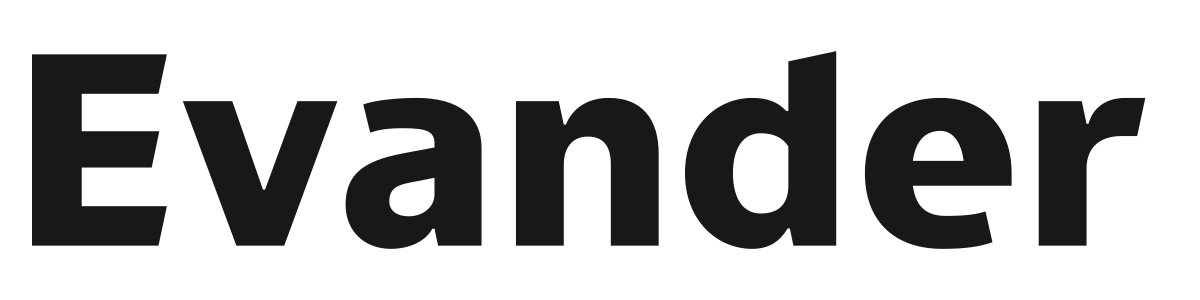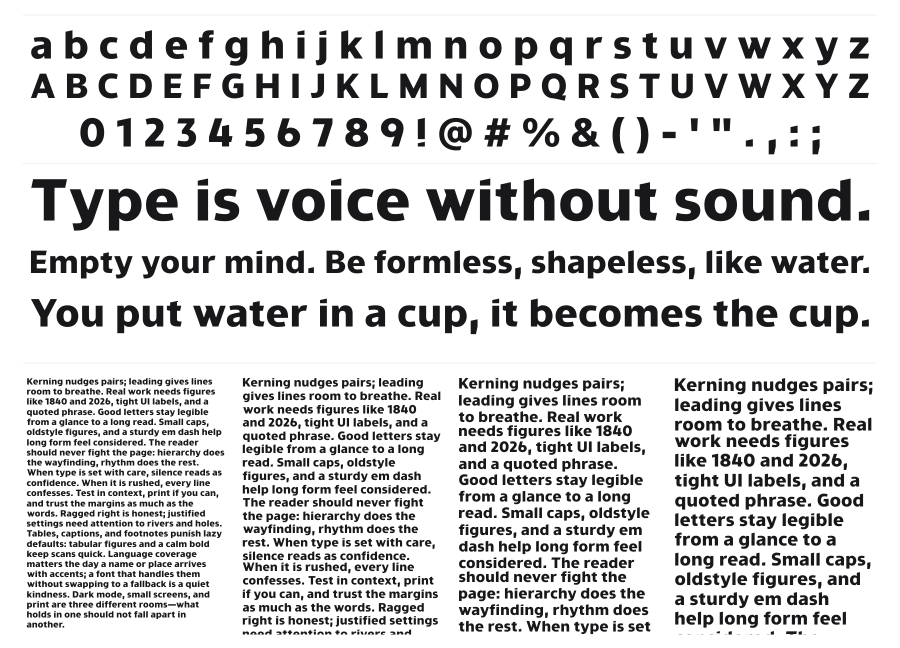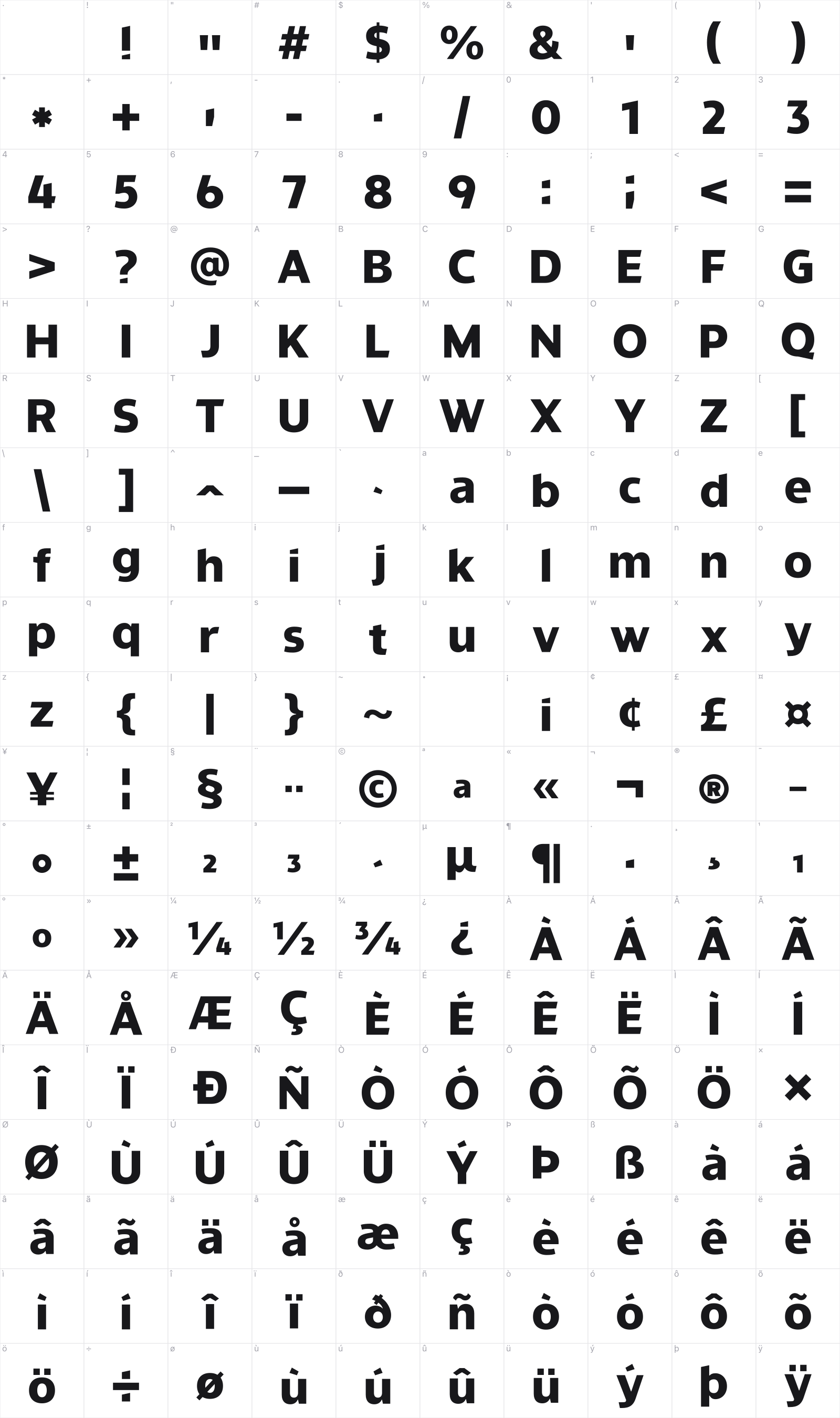
Evander
Evander is a contemporary humanist sans-serif from Punchform, built with wide proportions and a bold, assured weight. The characters have a warm, organic quality with open apertures and subtly rounded terminals that keep it from feeling cold or mechanical. It's part of an 18-weight family with 64 alternative glyphs and three stylistic sets, giving designers serious typographic flexibility.